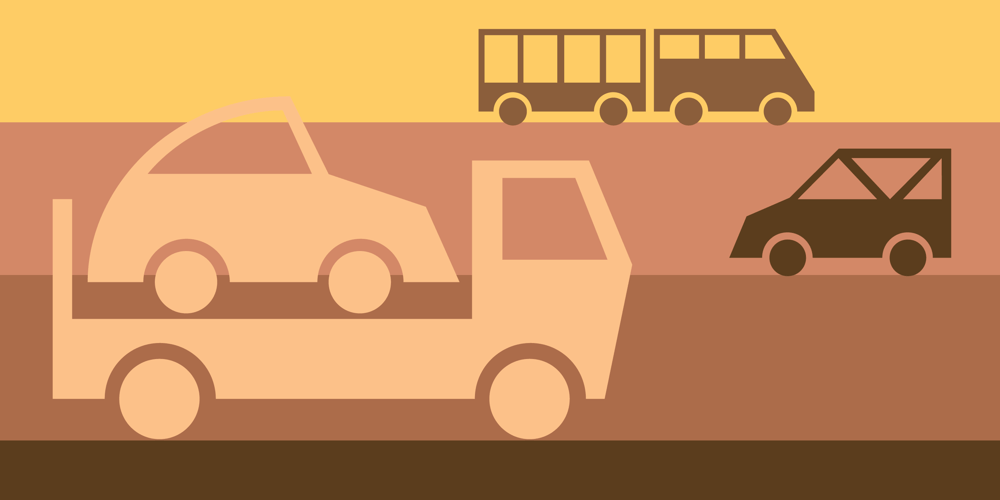
Autobats
Autobats font
Autobats Font Family was designed by Patrick Griffin and published by Canada Type. Autobats contains 1 styles and family package options. Autobats is a set of over 100 different car and truck icons, minimal silhouettes that can be adapted to whatever context your design flings at them. The mystery of why this font has been so popular was solved when one of our customers said, “I always use this thing, because the name starts with A, so it’s one of the first fonts I see in my slap-a-logo collection”. To see all the icons available, a glyph palette would be come in handy while using the font. Honk if you like convenience. Beep beep!